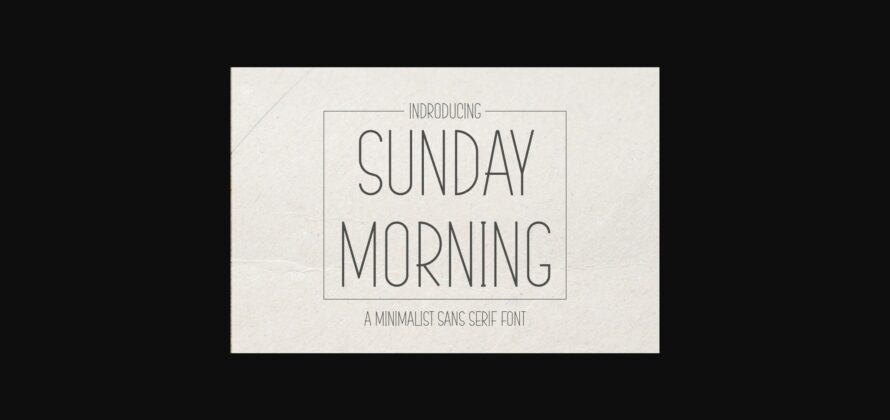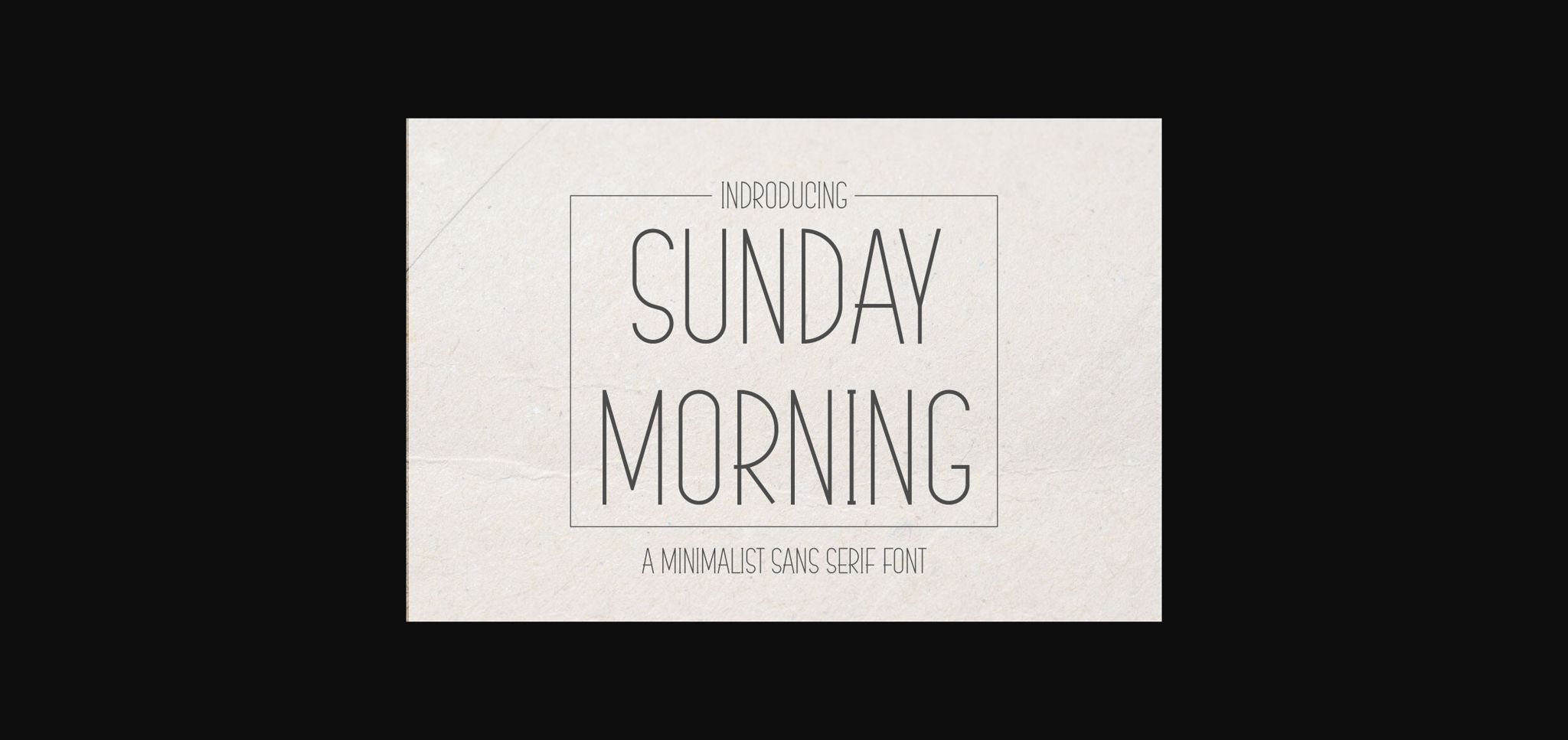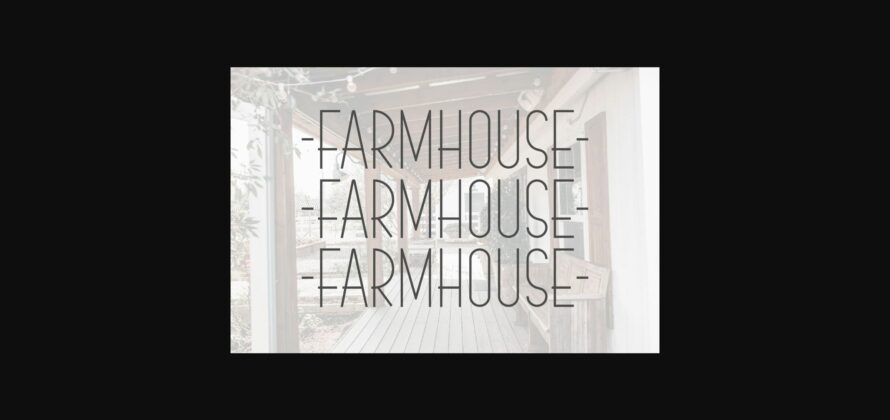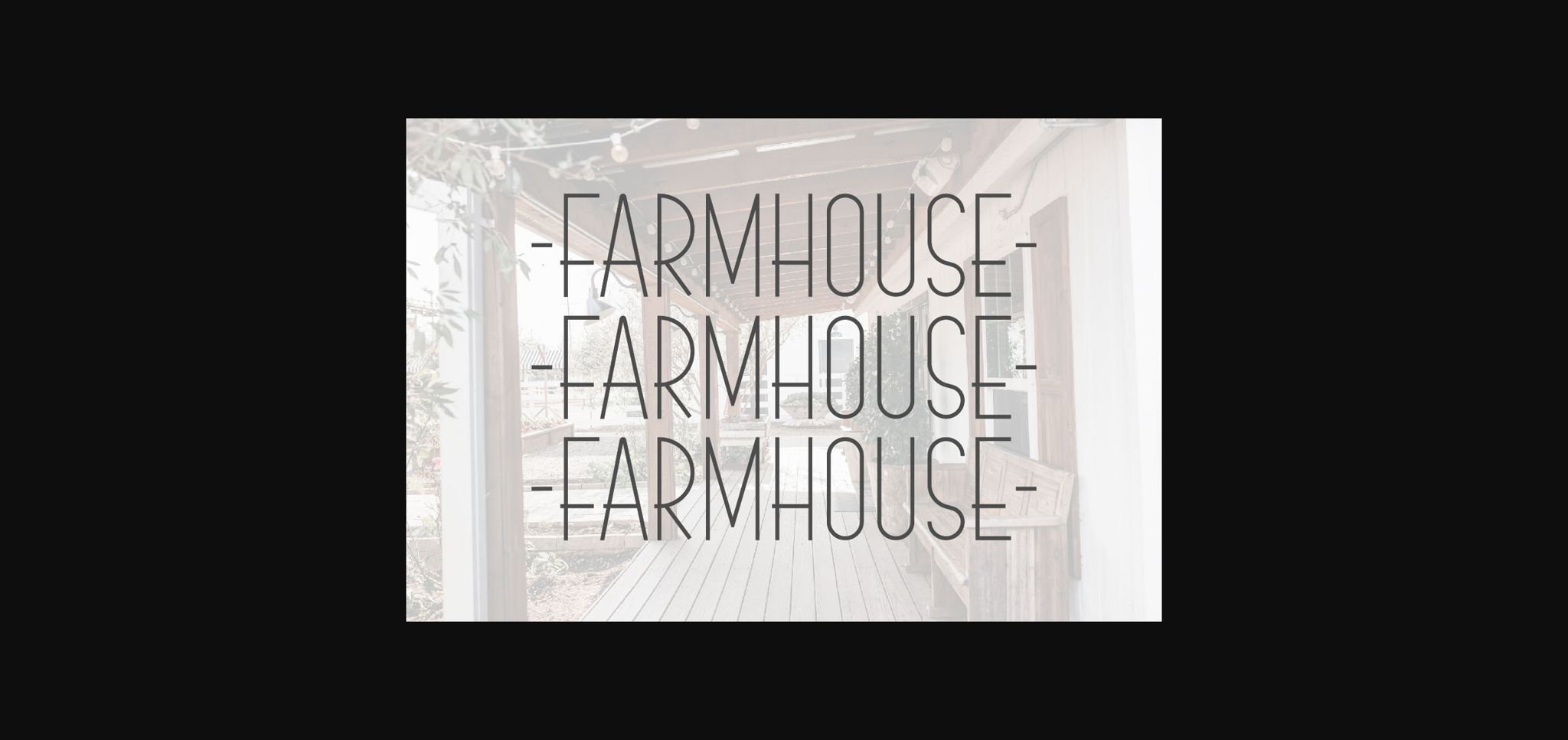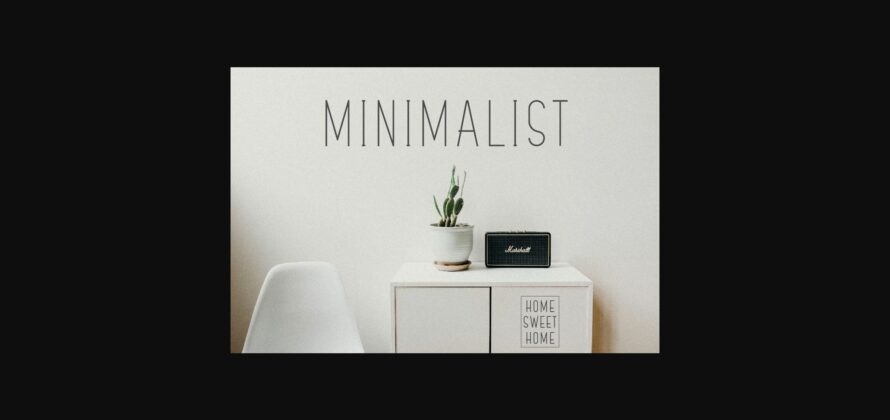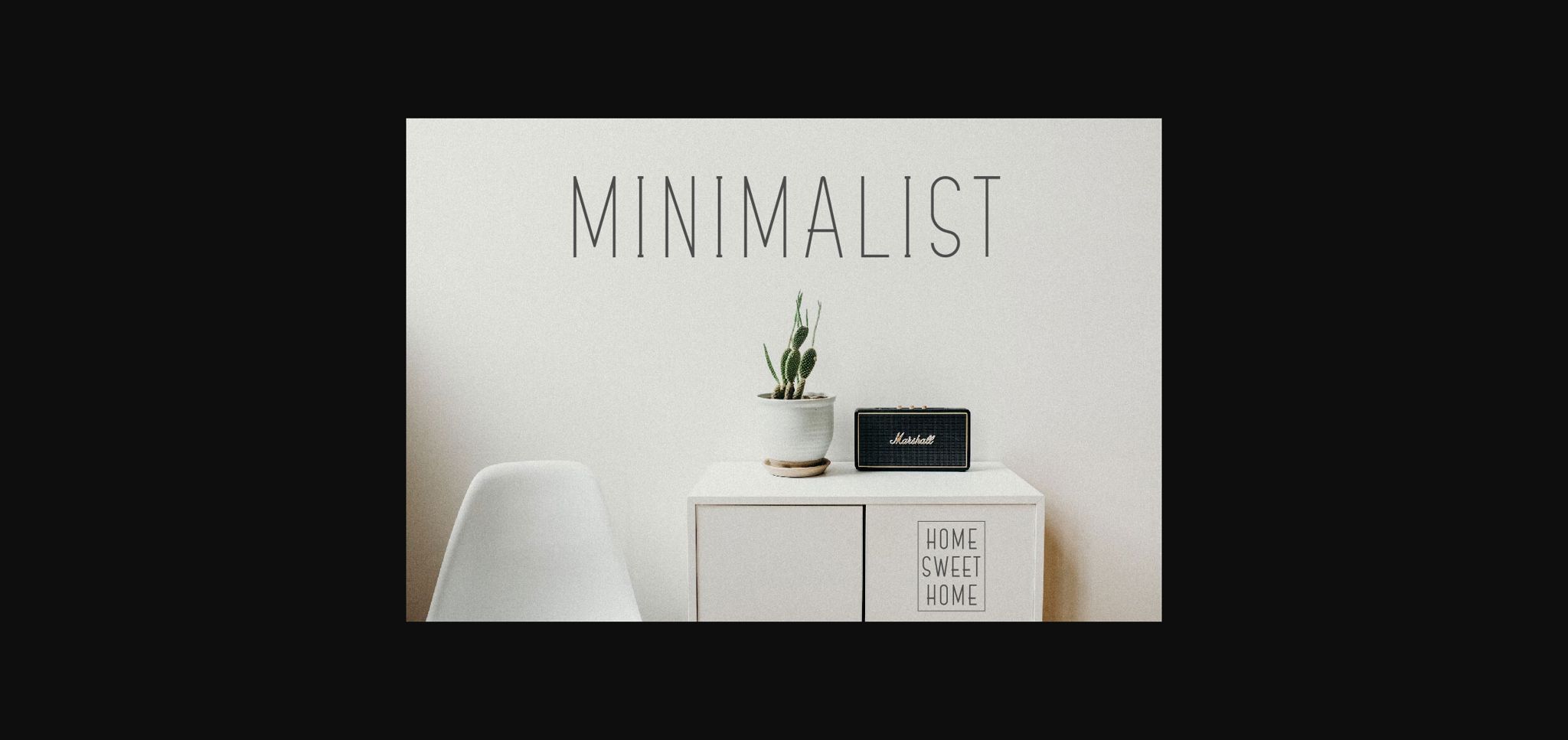
Sunday Morning Font
About Sunday Morning Font
Sunday Morning is a simple and minimalist sans-serif font. This font is perfect for creating a minimalist aesthetic in mug, interior design, label gift, t-shirt, greeting cards, wedding, quotes, birthday card, web design, branding etc. Use it to create spectacular and interesting designs!